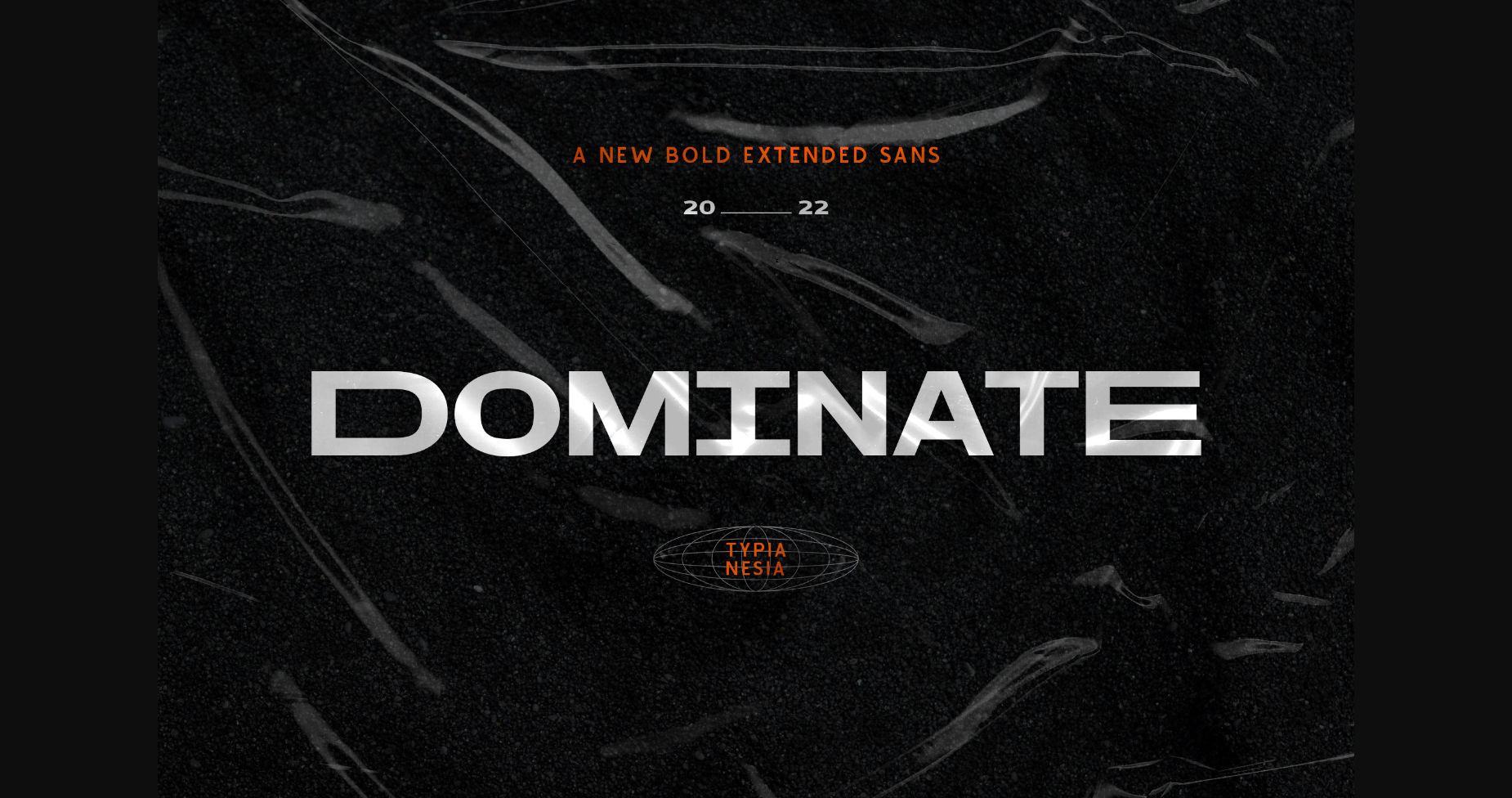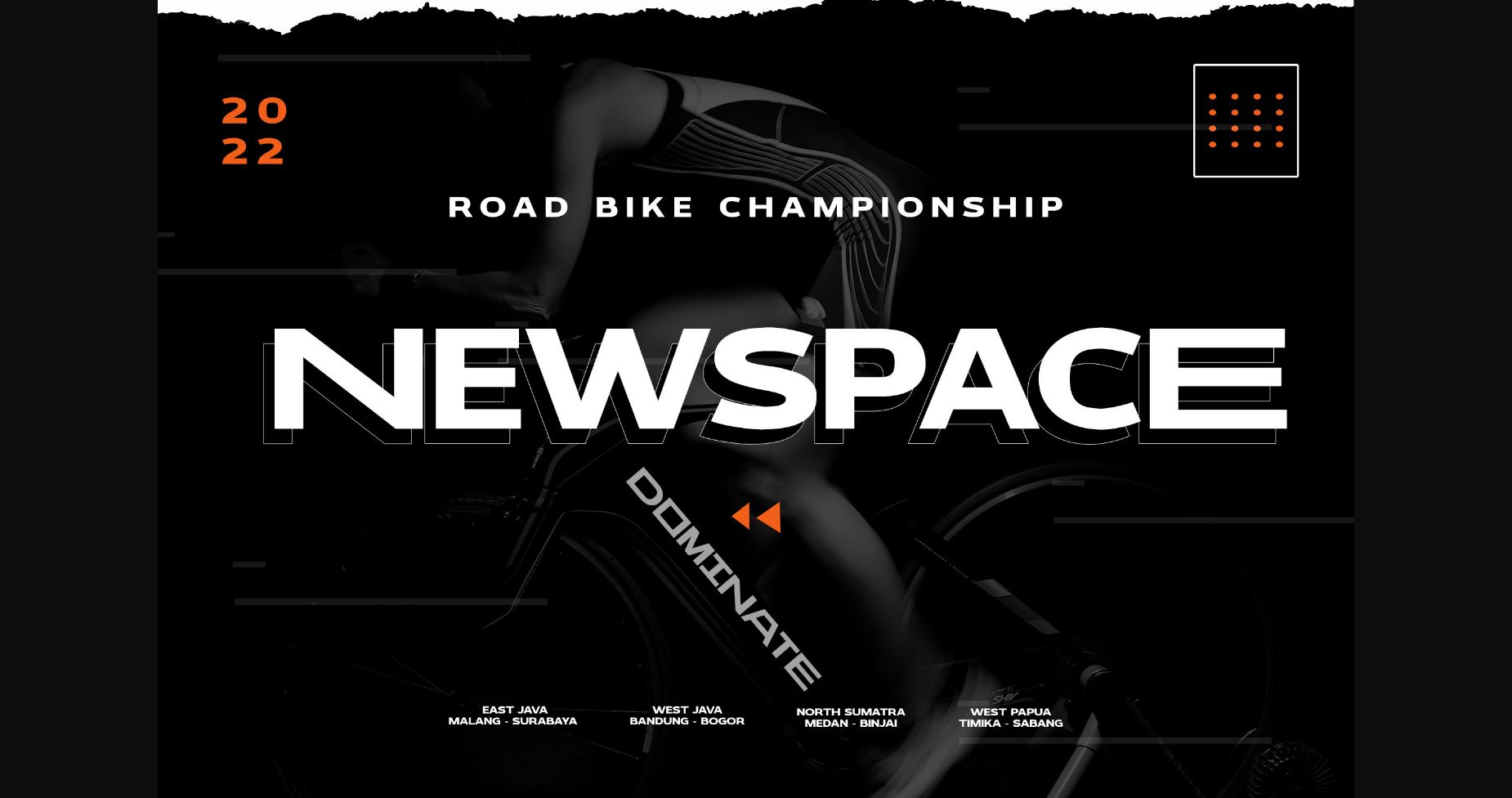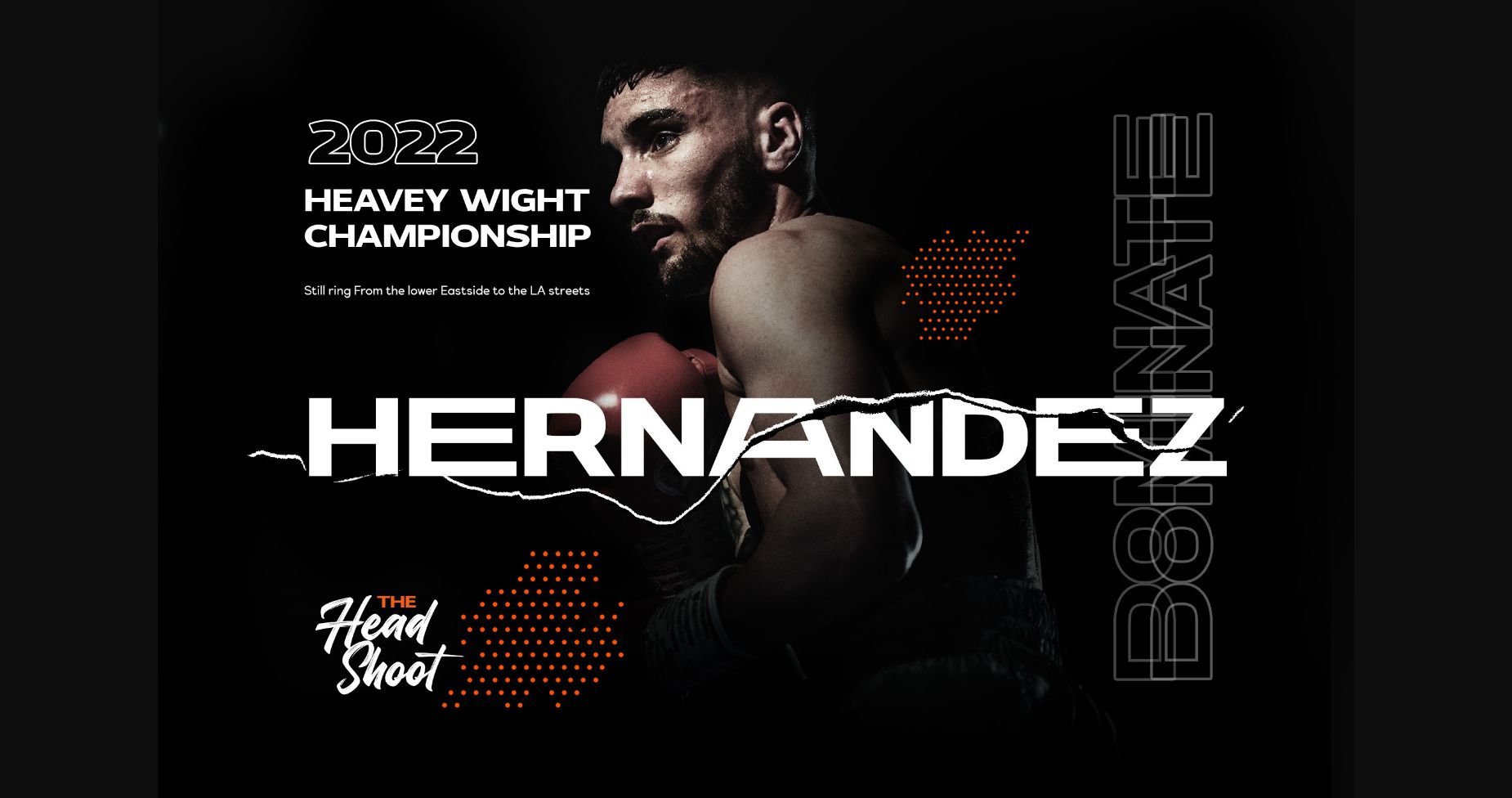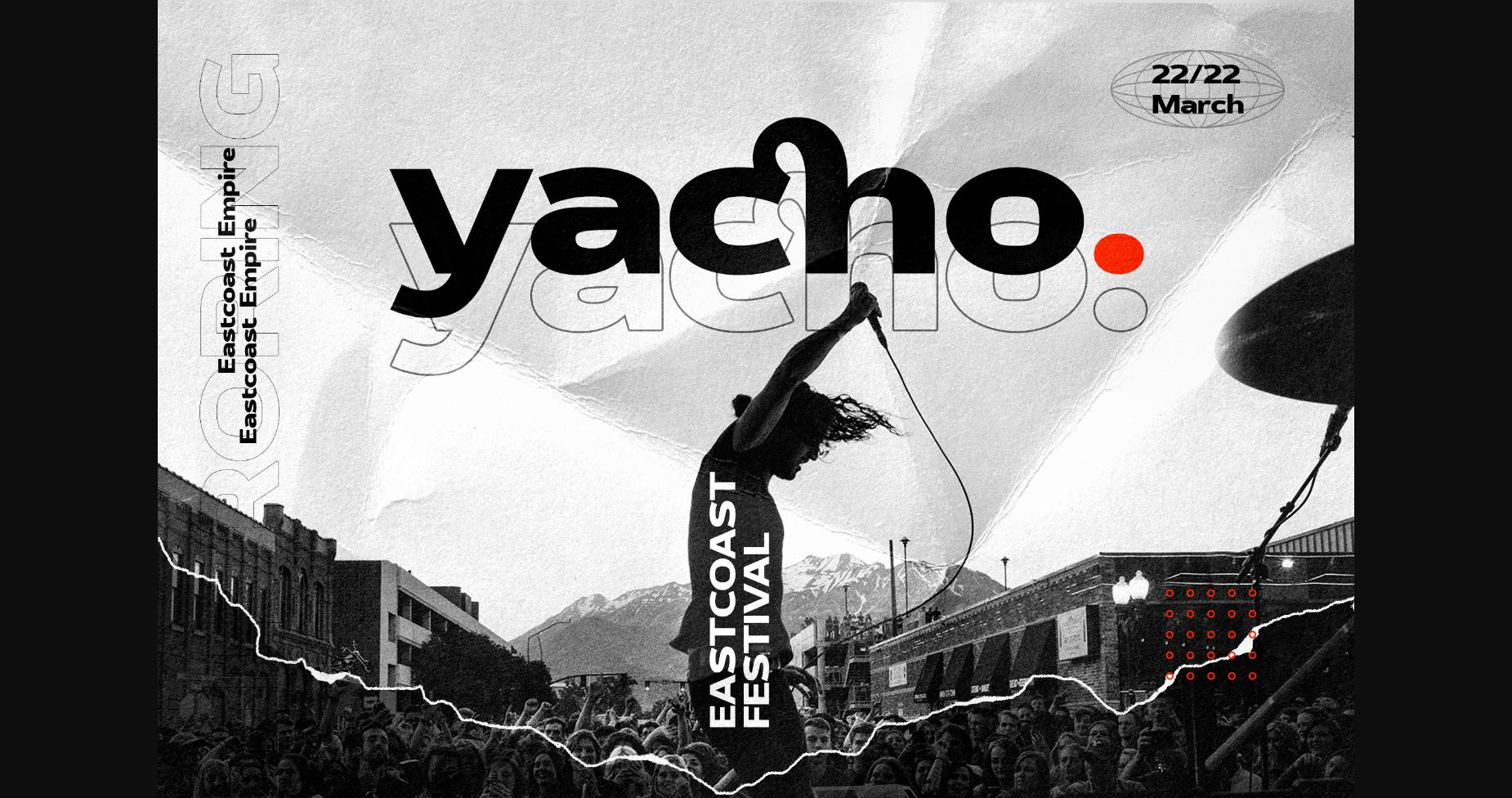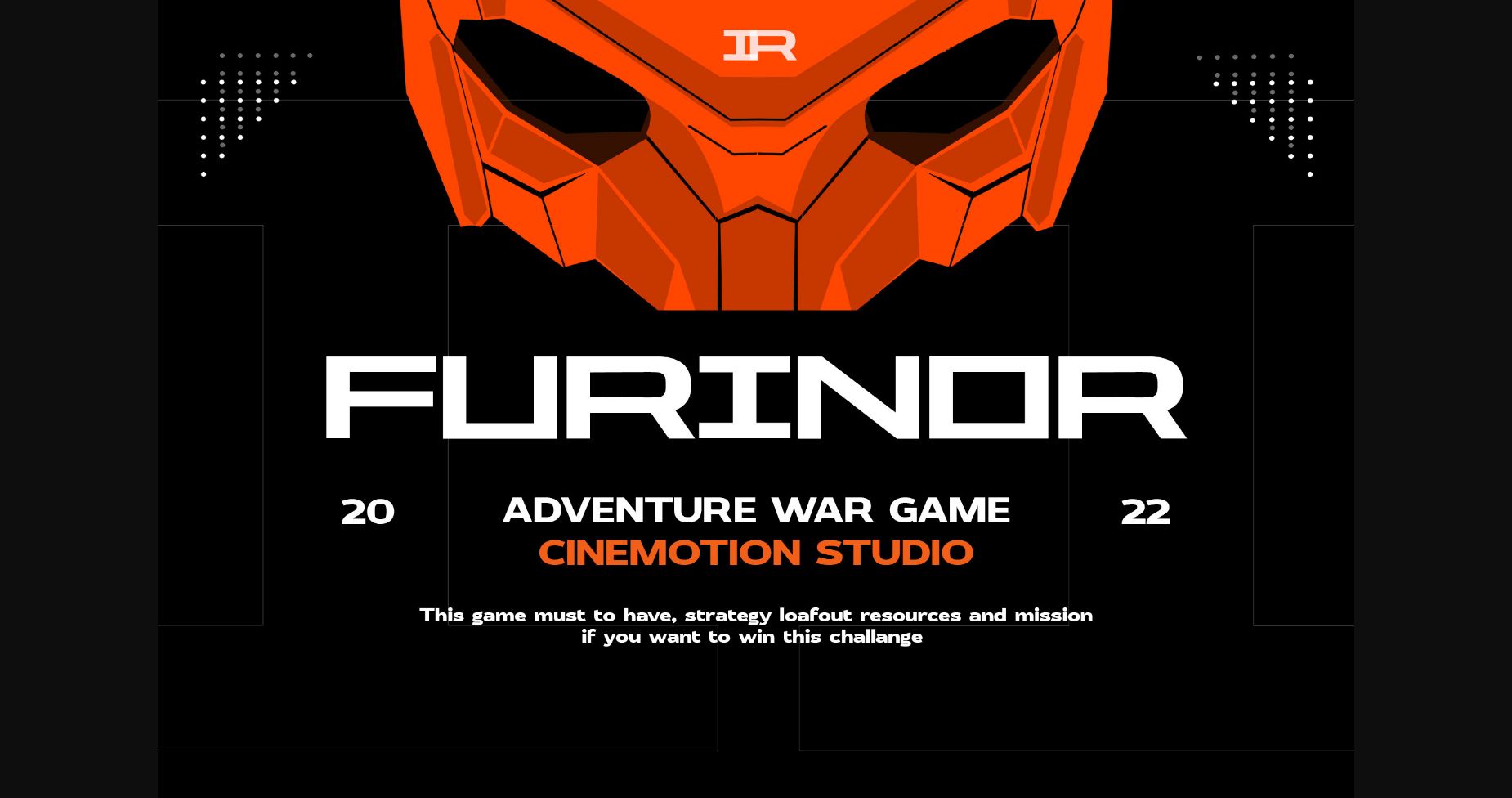
About Dominate Font
Dominate – Sports Game and Music Display Font – Modern Black / Bold Expanded Sans Serif Font
Dominate Bold Sans Serif Display Font is perfect for your upcoming projects. Such as logo branding, editorial design, sport design, game/gaming industry, music cover and poster, technology website design, modern advertising design, modern poster quote, book/cover title, special events, and more.